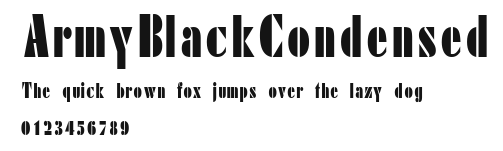
About ArmyBlackCondensed.ttf
ArmyBlackCondensed.ttf is a modern, elegant sans-serif font designed for ultimate readability and visual harmony. Perfect for branding, headlines, web design, and print materials.